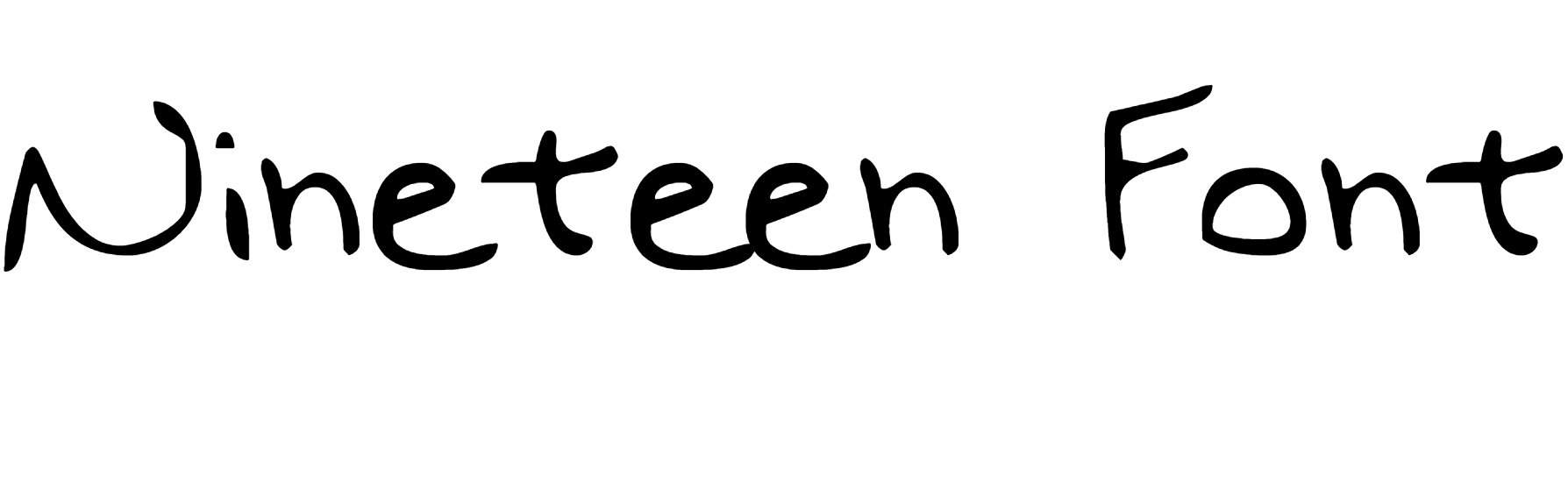
Nineteen
Nineteen is a handwritten font (2001). The letters have the small wobbles and personality of real handwriting, so your text feels warm instead of printed. You can download it for free and test it with your own words in the preview above.
What You Can Type With Nineteen
Nineteen covers the full alphabet in upper and lowercase, plus all ten numbers, so you can set names, dates and prices without switching fonts. Common punctuation such as &, !, ? and @ is included as well. It also has the accented letters you need for Spanish, French, Portuguese and Italian.
Where Nineteen Works Best
Think of Nineteen for greeting cards, journal pages and friendly social posts. The file has no kerning data, so in logos and big titles check pairs like AV, To and Wa and tighten the spacing by hand. Set it a bit larger than you would a normal text font. Handwriting styles lose their charm once they get too small to read comfortably.
Does Nineteen support accented letters?
Yes. Nineteen includes the accented letters needed for Spanish, French, Portuguese and Italian, so it works for more than just English.